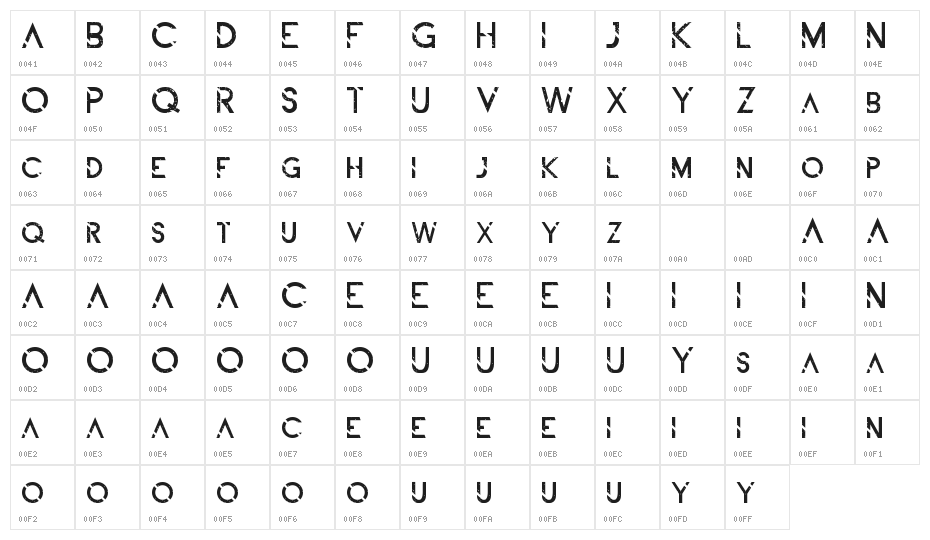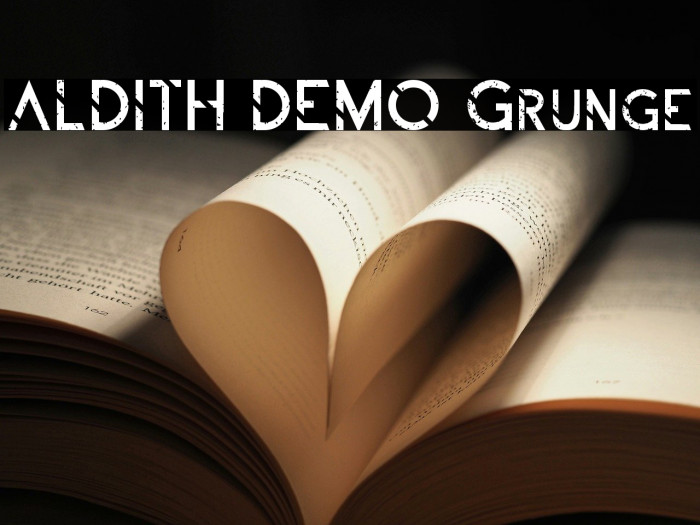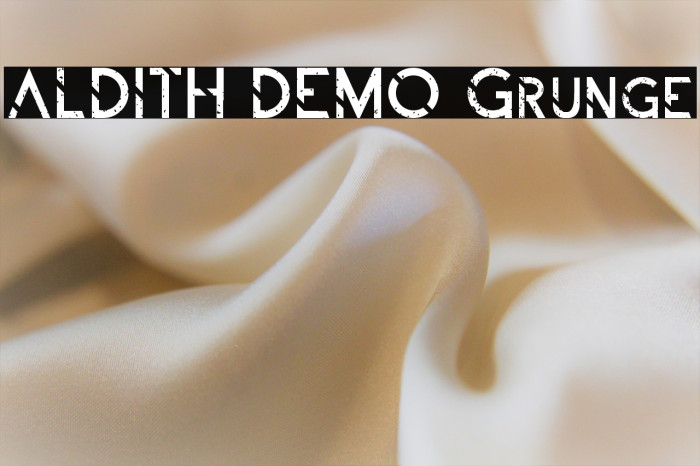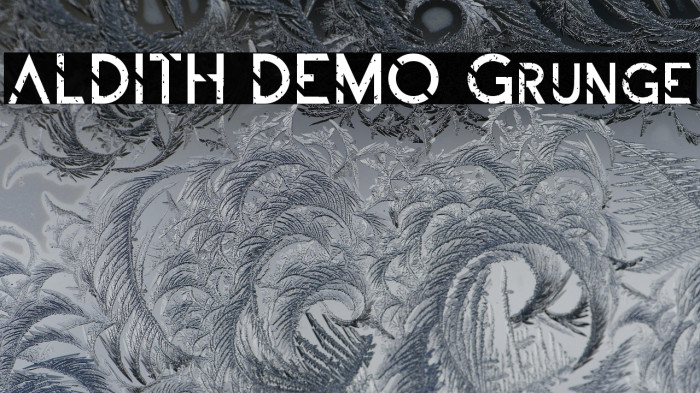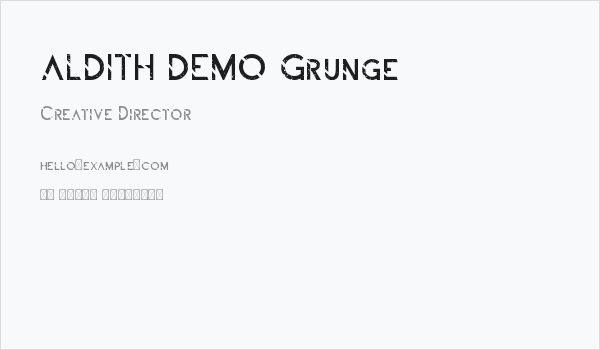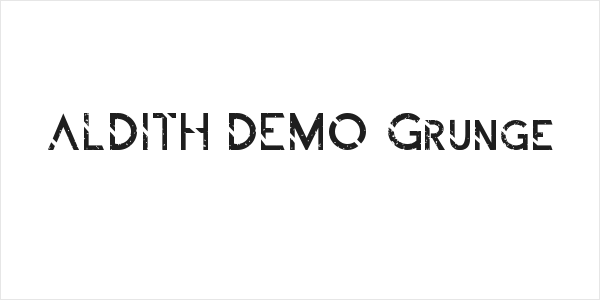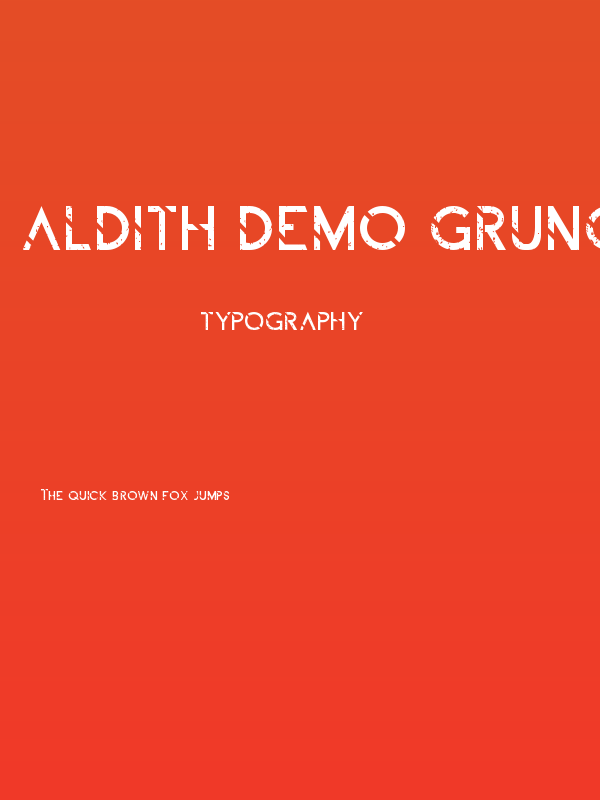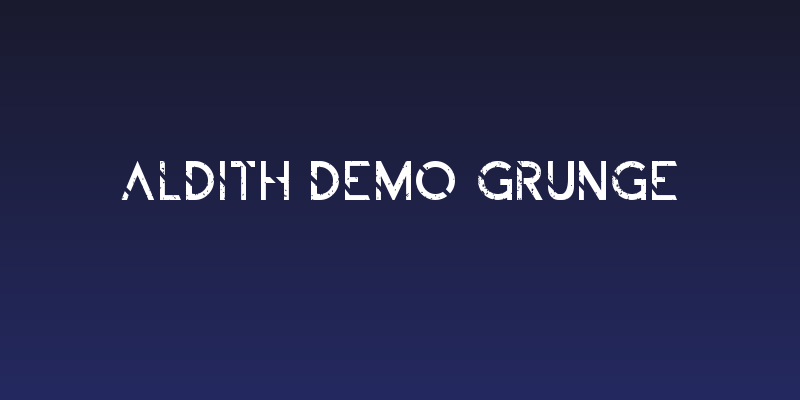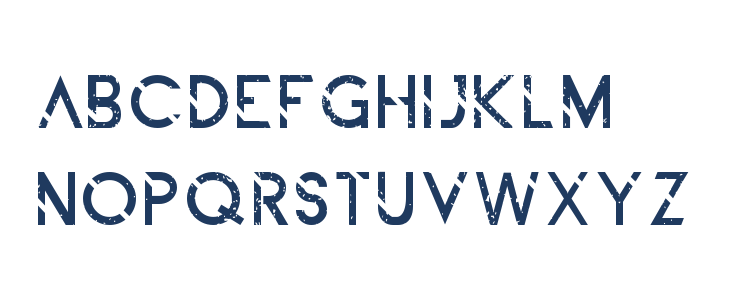
ALDITH DEMO Grunge Font
ALDITH DEMO Grunge Description
This font features a bold, distressed style with a grunge aesthetic. The characters are uppercase and exhibit a rough, textured appearance, giving them a worn and edgy look. The design incorporates irregularities and imperfections, adding to its rugged charm. The strokes are thick and consistent, providing a strong visual impact. This font is ideal for projects that require a bold statement or an urban, industrial feel. Its unique style makes it suitable for creative designs, posters, album covers, and branding that aim to convey a sense of rebellion or nonconformity.
| Overall Style | Grunge, Urban, Industrial |
| Proposed Projects | Posters, album covers, branding, urban-themed designs, rebellious or nonconformist projects. |